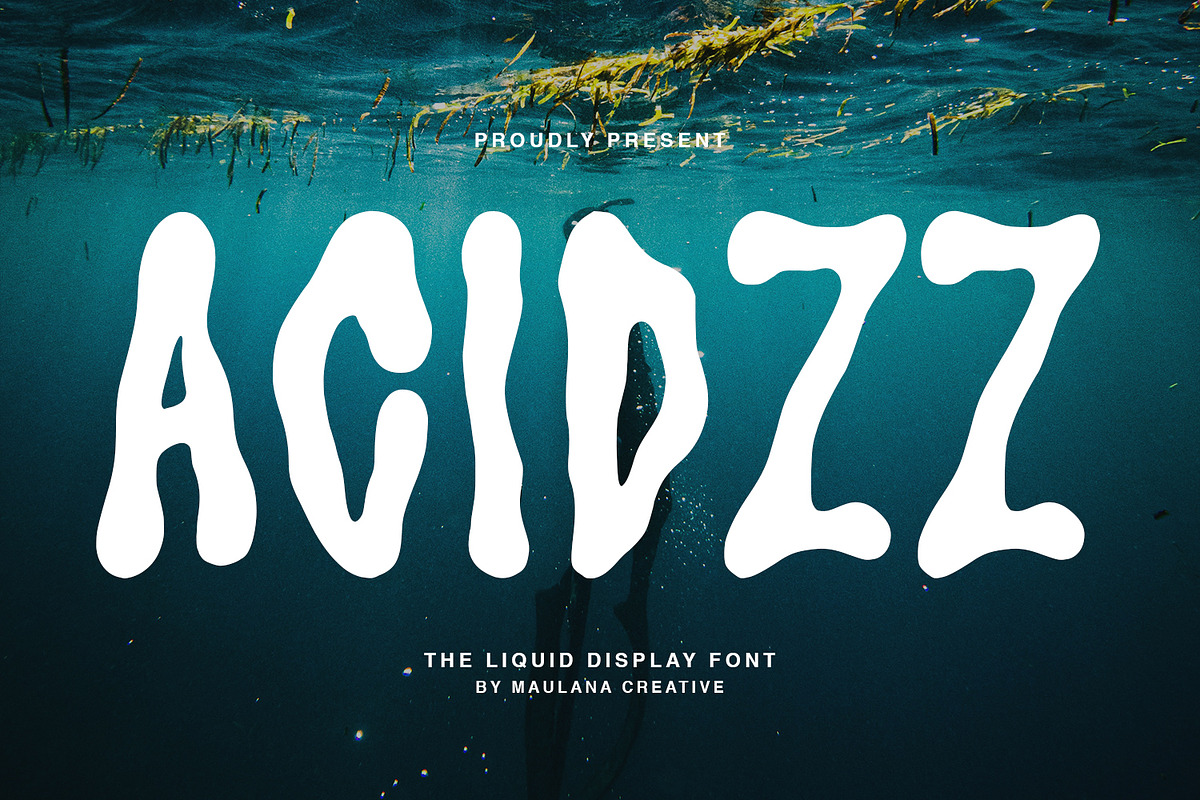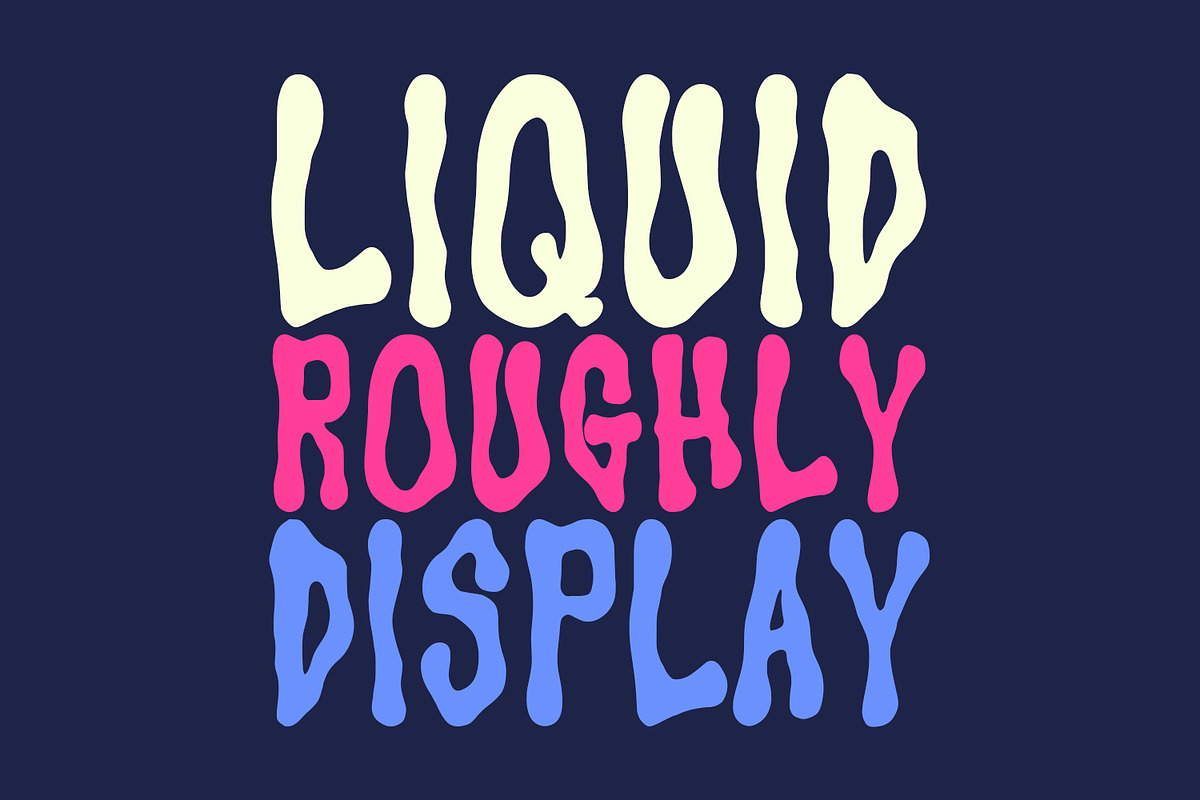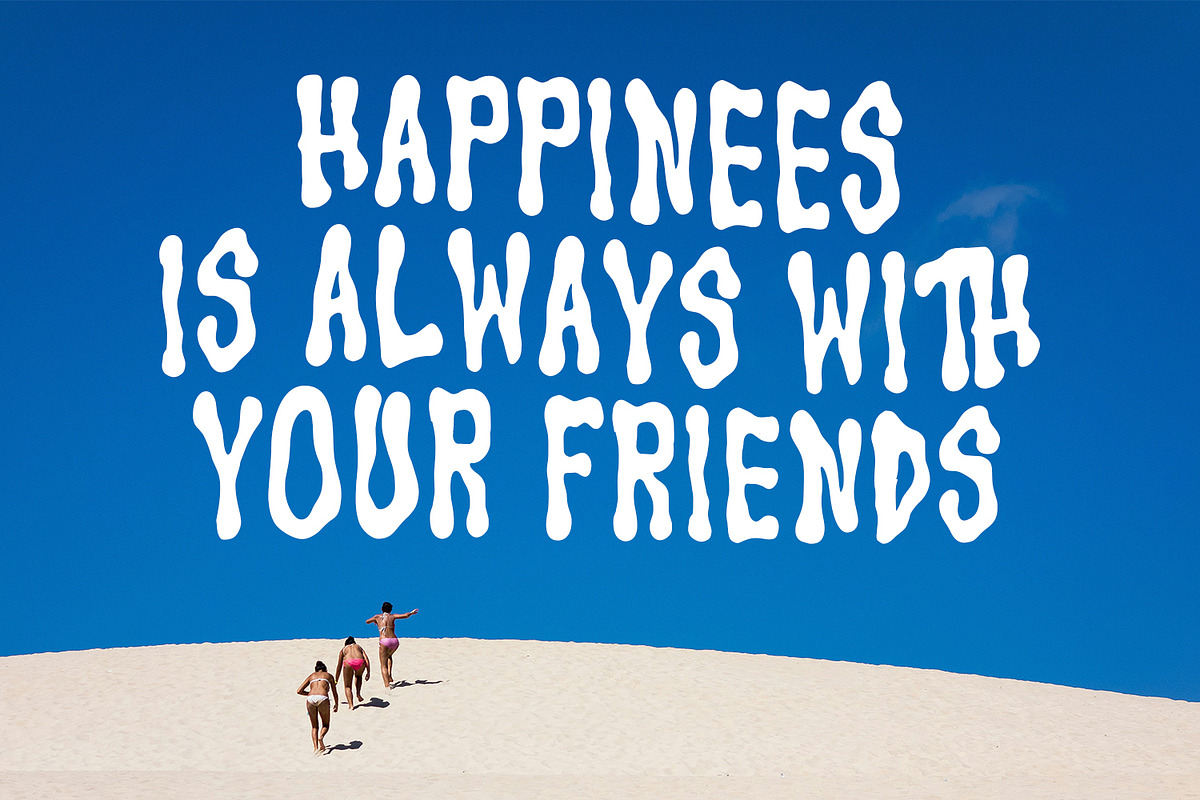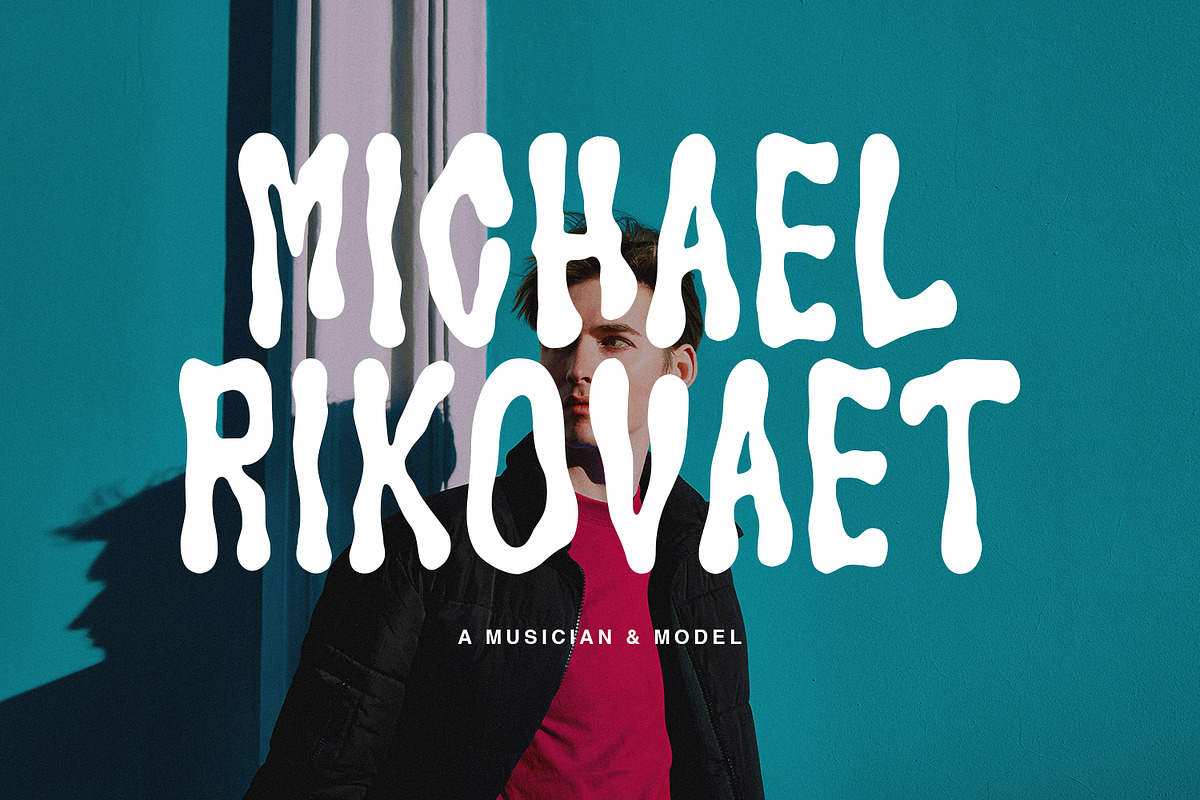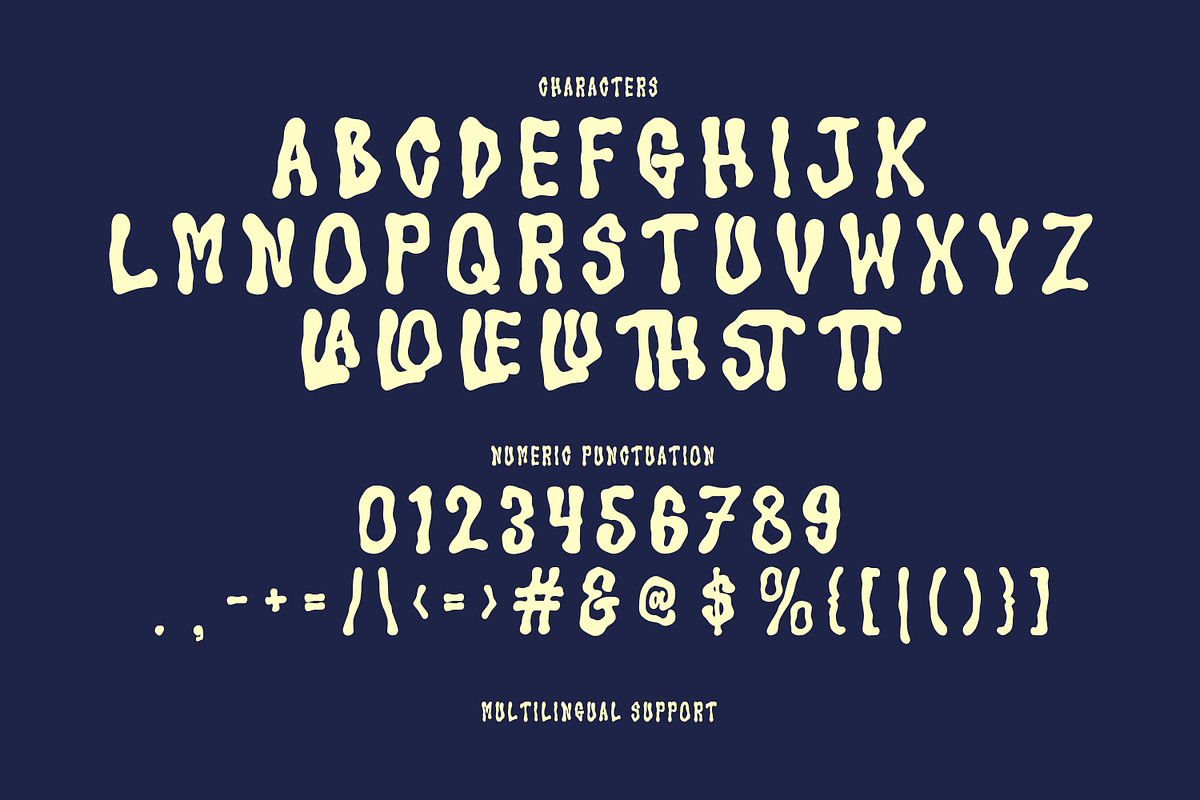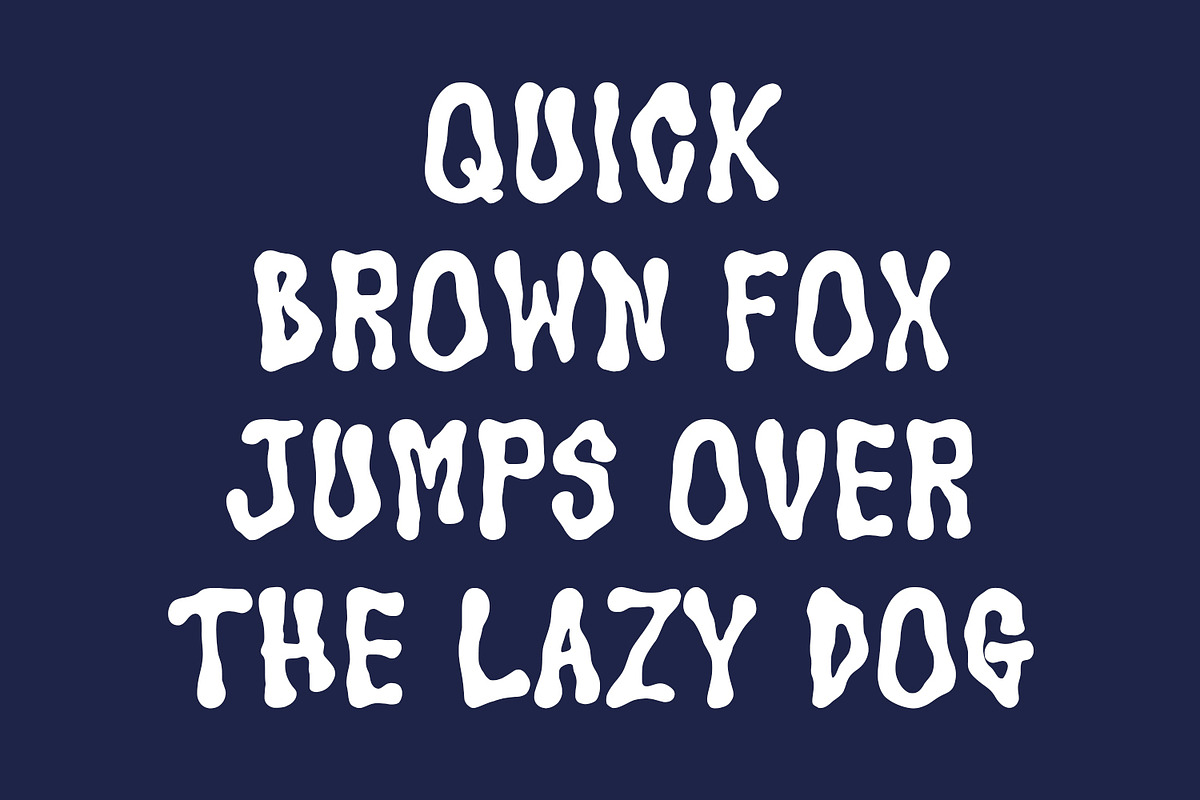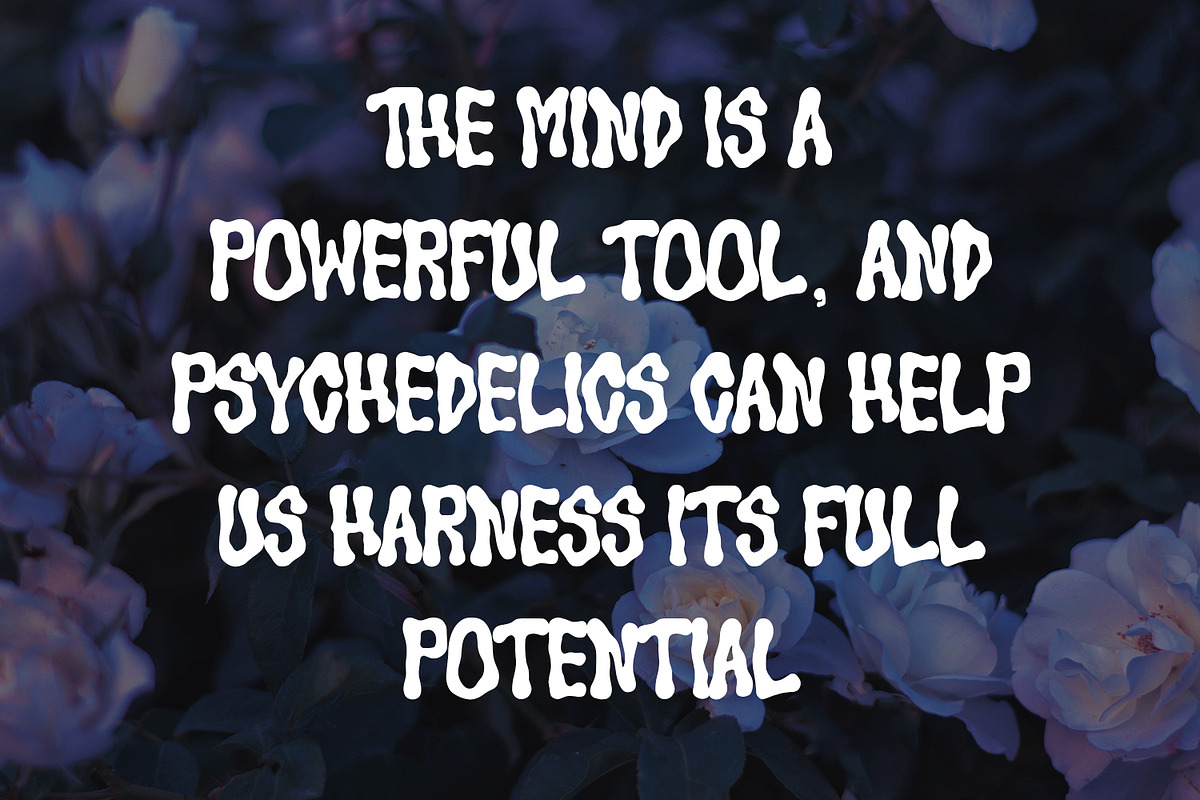
Acidzz Liquid Display Cute Font
Acidzz is a liquid cute display handwritten font. With bold stroke, fun character with a bit of ligatures. To give you an extra creative work. Acidzz font support multilingual more than 100+ language. This font is good for logo design, Social media, Movie Titles, Books Titles, a short text even a long text letter and good for your secondary text font with sans or serif. Make a stunning work with Acidzz font.